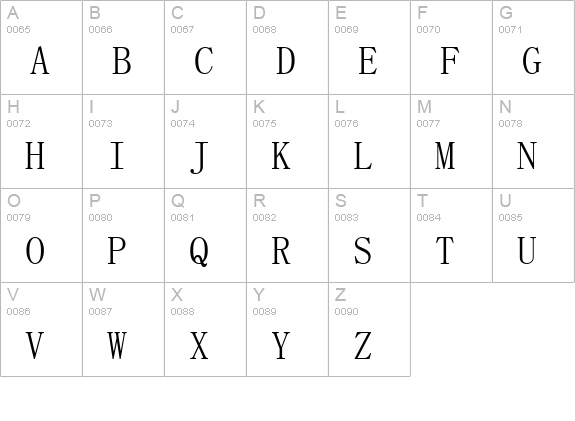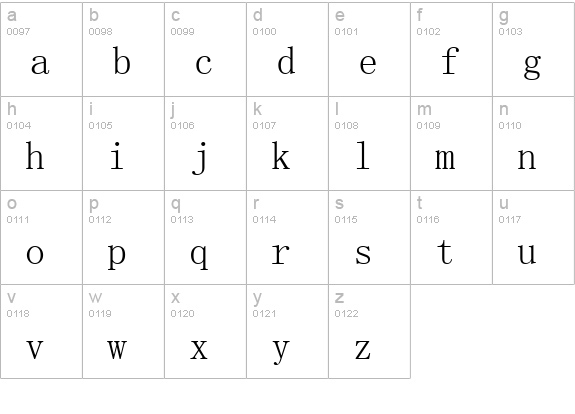
SimSun is a beautifully designed font that combines elegance with simplicity. It is a versatile typeface that can be used for various purposes, from professional documents to creative designs. With its clean and modern appearance, SimSun is perfect for creating eye-catching headlines, captivating logos, and engaging body text. One of the most appealing aspects of SimSun is that it is free. Yes, you read that right – this incredible font can be downloaded without any charge. It is freely available to download at FontsMarket.com, a reputable website that offers a wide range of high-quality fonts. Whether you are a graphic designer looking to add a touch of sophistication to your projects or a student working on a presentation, SimSun is the ideal choice. Its legibility and readability make it suitable for both print and digital mediums, ensuring that your message is conveyed effectively. The beauty of SimSun lies in its simplicity. The font's clean lines and balanced proportions give it a timeless appeal, making it suitable for any design style or theme. Its versatility allows it to seamlessly blend in with any layout, enhancing the overall aesthetic of your work. SimSun's extensive character set includes a wide range of punctuation marks, special symbols, and international language support. This ensures that you can express yourself creatively in any language or context. Additionally, the font's various weights and styles provide flexibility in creating diverse typographic compositions. Don't miss the opportunity to enhance your design projects with SimSun. Download this remarkable font for free at FontsMarket.com and experience the power of elegant typography. Whether you are a seasoned professional or just starting out, SimSun is sure to elevate your designs and leave a lasting impression on your audience.